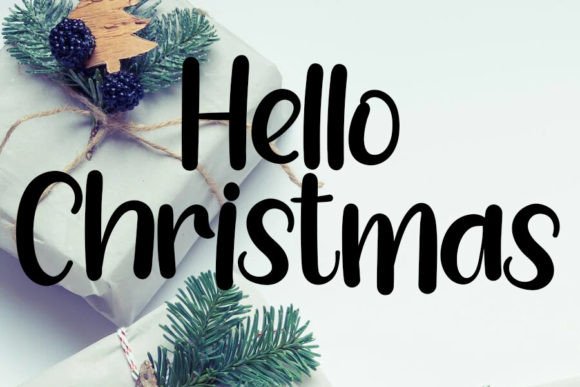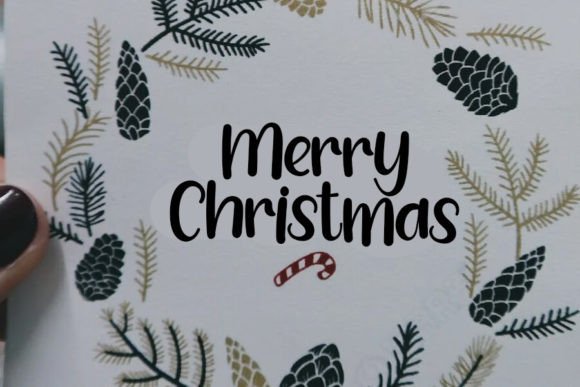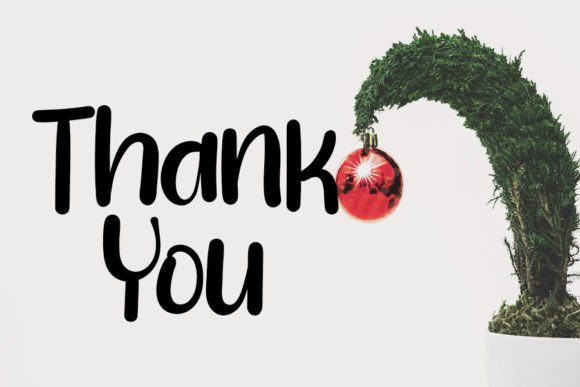
Deck the Halls with Typography: A Christmas Font to Fall in Love With
As the holiday season approaches, the creative juices start flowing, and our minds are filled with ideas for festive projects. It’s the perfect time to break out the glue, glitter, and – of course – the perfect font. For many designers, the search for the ideal script font begins. That’s where Christmas Font comes in – a beautiful, handwritten font that’s sure to add a touch of magic to your next project.
Whether you’re creating greeting cards, designing holiday advertisements, or crafting a special message for a loved one, Christmas Font is the perfect choice. Its versatility and romantic feel make it a valuable asset for any designer looking to add a little extra sparkle to their work. With Christmas Font, you can create projects that are both timeless and timely – perfect for the holiday season and beyond.
Christmas Font Key Features
- Unique Characteristics: This font features intricate, hand-drawn illustrations of snowflakes, holly leaves, and other festive elements, adding a touch of whimsy to designs.
- Font Style: Christmas Font comes in two styles: Regular and Ornate, allowing users to choose the level of ornamentation that suits their design needs.
Designer Review: Christmas Font
Overall, I’d say the Christmas Font is a decent choice for a festive project, but it has its pros and cons. ✨
- Fun and playful style that captures the spirit of Christmas
- Variety of font styles and weights to choose from
- Works well for headings and titles, adding a touch of holiday cheer
- May not be suitable for body text, as it can be difficult to read in larger blocks
- Some characters may not render correctly in certain fonts or browsers ⚠️
- Lacks a professional, elegant feel that might be needed for more formal projects
Overall, I think the Christmas Font is a great choice for a fun, casual project or a social media graphic. However, if you’re looking for a more professional or formal font, you might want to consider other options. With a little creativity and experimentation, you can make this font shine and add a festive touch to your project!
To get the most out of the Christmas Font, consider the following tips:
- Use the font in conjunction with festive graphics and colors to create a cohesive holiday look.
- Use the font to create a sense of hierarchy and emphasis in your design.
The Christmas Font is commonly used in:
- Holiday greeting cards and invitations.
- Seasonal social media graphics and ads.